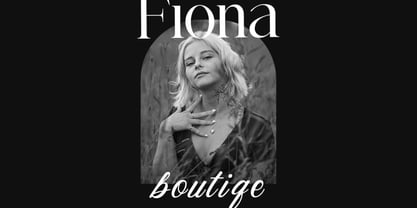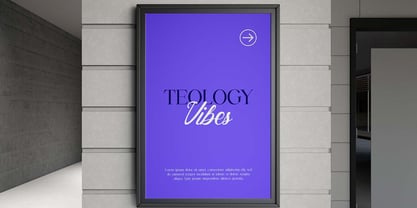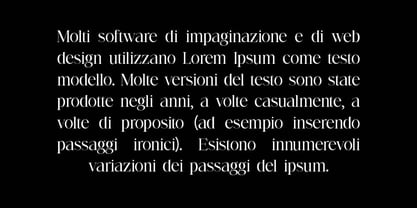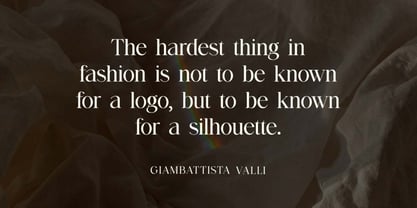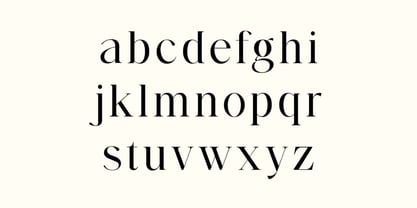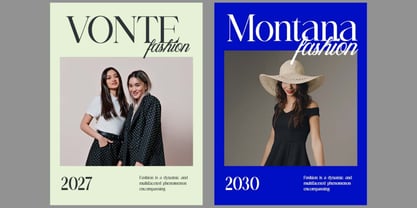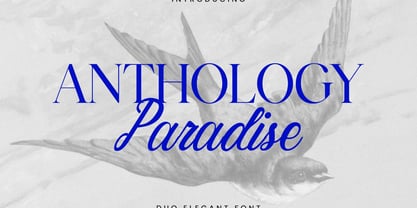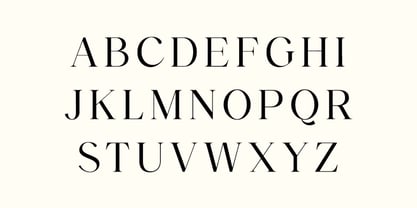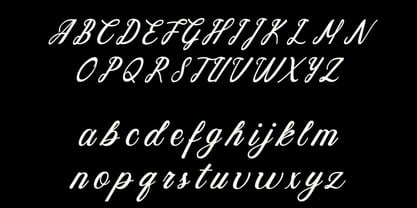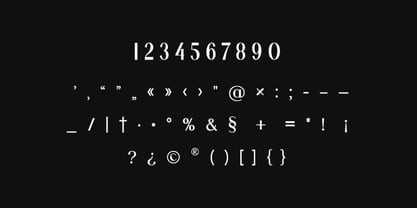
Anthology Paradise
The Anthology Paradise Font Family was designed by Hero and published by UICreative. Anthology Paradise contains 2 styles and family package options.
Anthology Paradise Duo Elegant Serif Font. The modern display font feels beautiful classy, elegant, and stylish. This font is ideally suited for a wide variety of projects, such as signature, stationery, logo, wedding, typography quotes, magazine or book covers, website headers, branding, and more. Also, fashion-related branding or editorial design displays both masculine and feminine qualities.